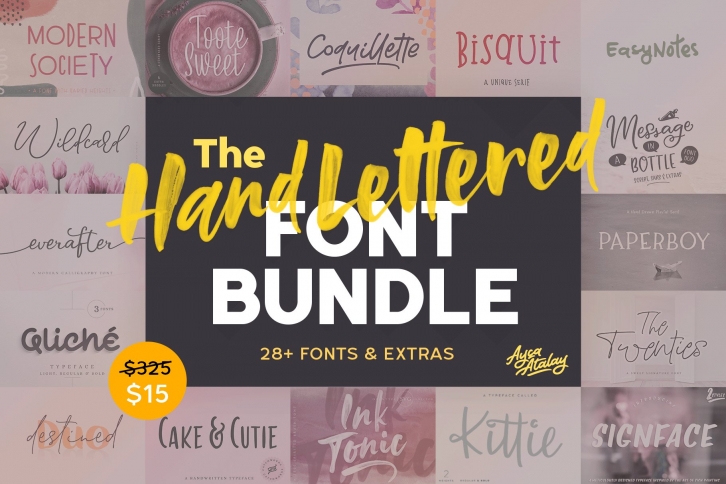
The Hand Lettered Bundle is a gorgeous font that was realeased on June 22, 2020. The font can be used in many style contexts and design environments. Perfect for invitations, magazines, websites, logos, and more! It was designed by Ayca Atalay and the file size is 4.89 MB. Thanks for checking out this font!